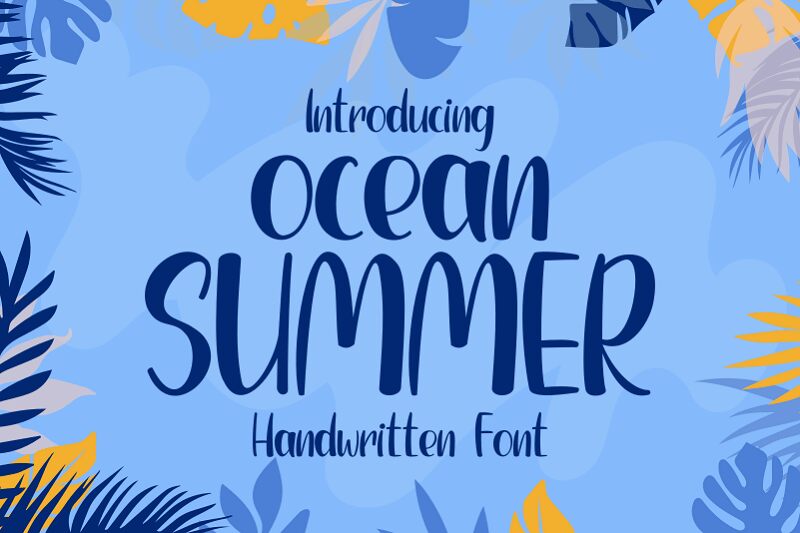
Ocean Summer
Ocean Summer font by Rvandtype is a free brush font carrying artistic flair, casual elegance, and fluidity. Expressive by design, the modern font combines straight penmanship with jagged details and unpredictable strokes inspired by the shapes of ocean waves as its source of inspiration. Well-balanced in terms of thickness and size, it presents clear large letters which are highly readable from far away.
Use Ocean Summer for posters about tropical locations such as summer camps or international trips or use it for more focused designs including postcards, invitations, book covers, branding presentations, etc. This versatile resource can also be added to UX and UI project designs or printed in clothing items like T-shirts.